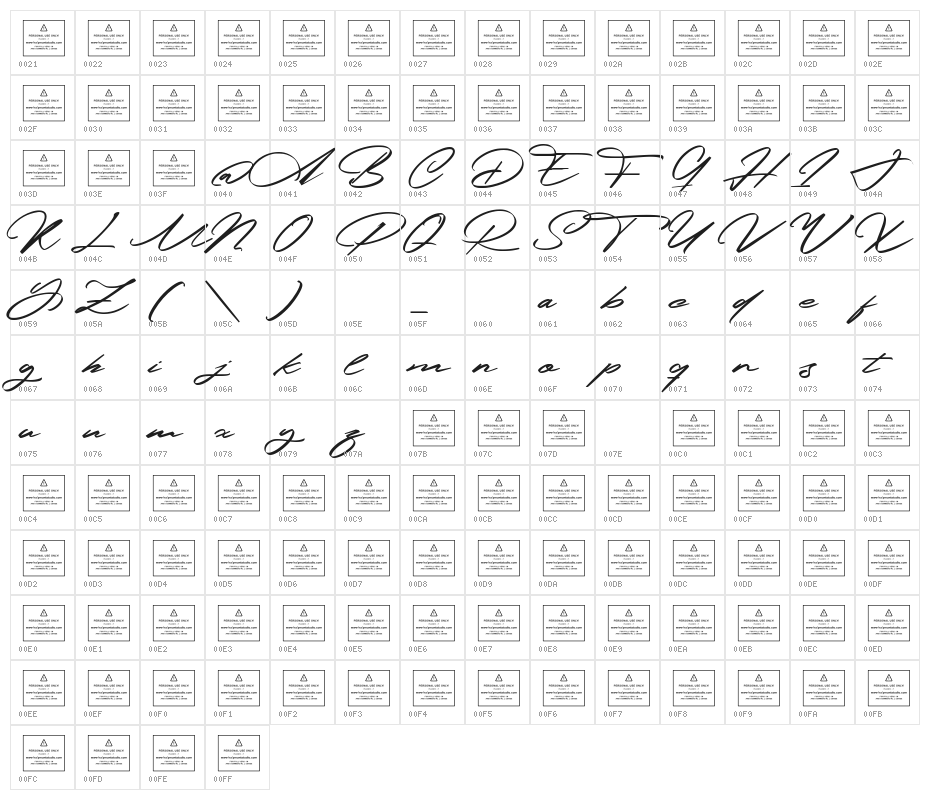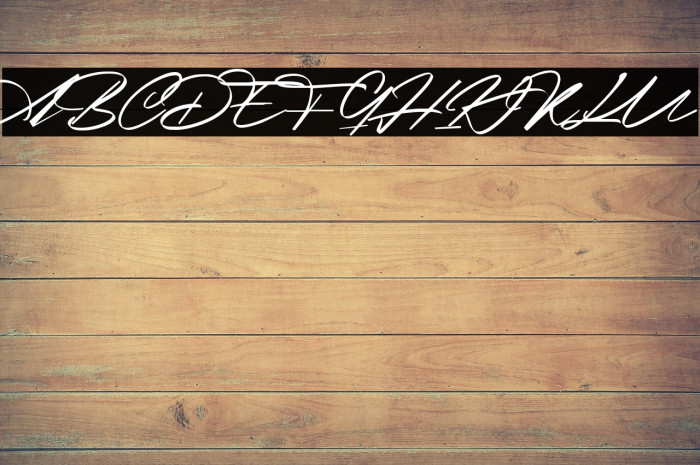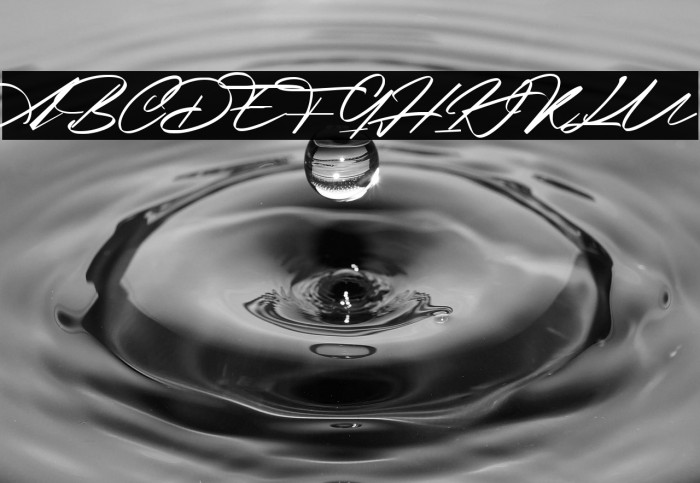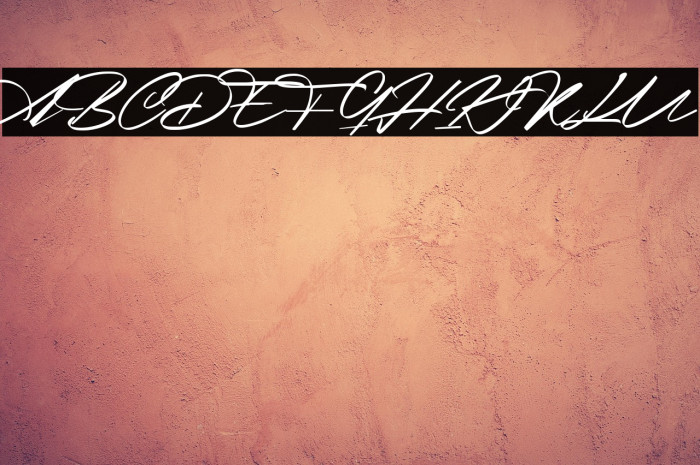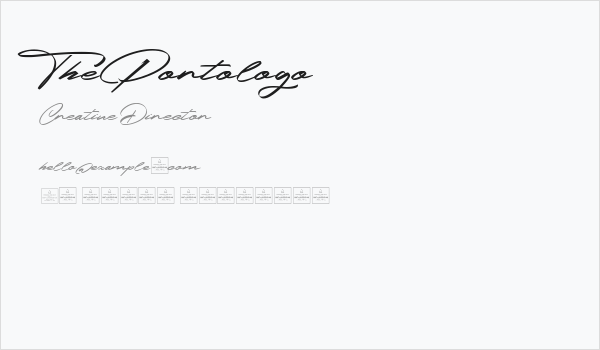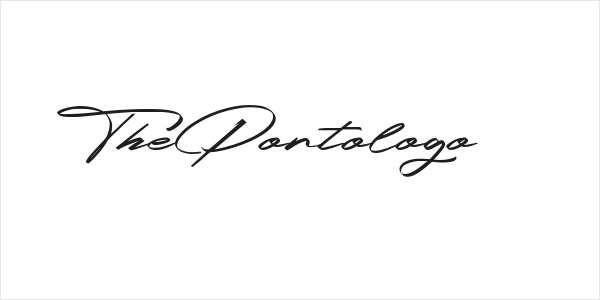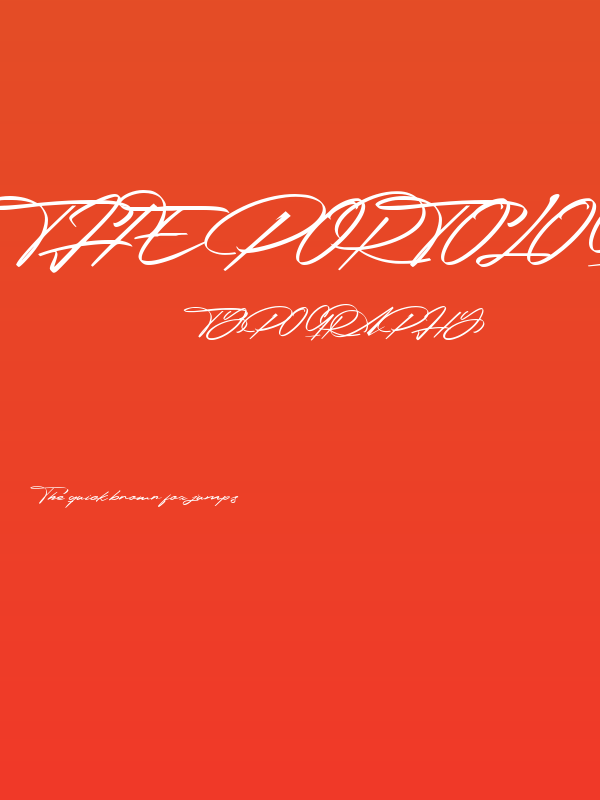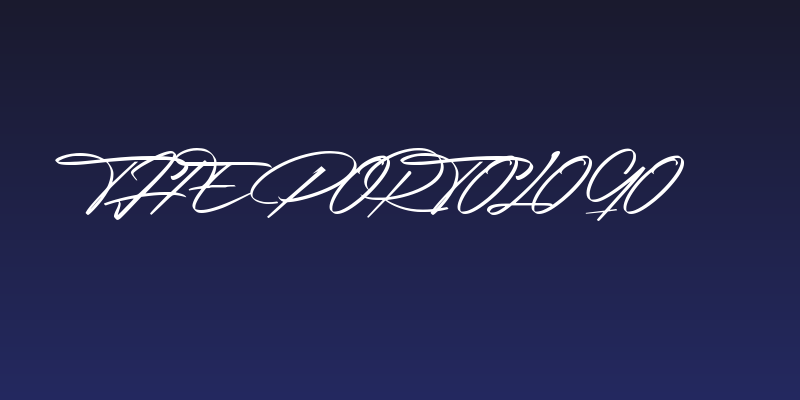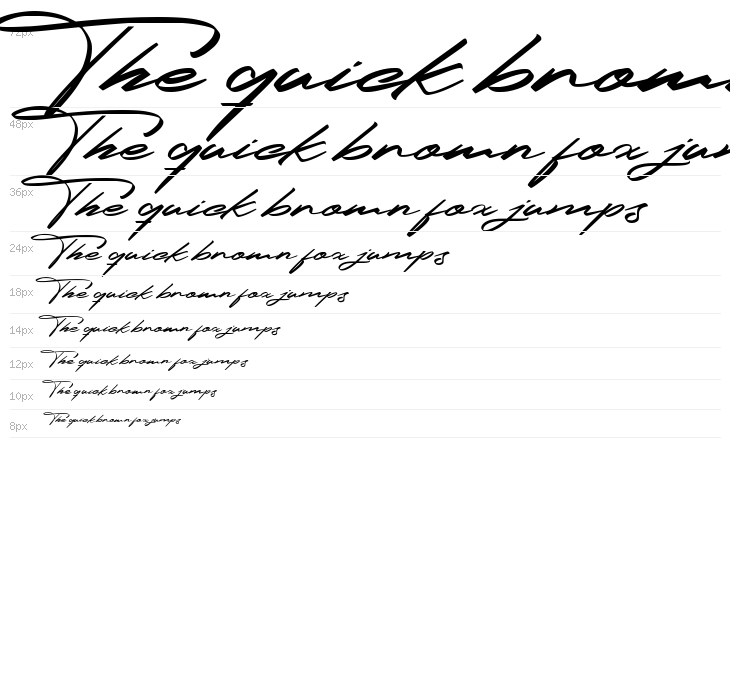
The Portologo Font
The Portologo Description
This elegant script font features flowing, interconnected letters that mimic the fluidity of cursive handwriting. The characters are gracefully slanted, with a consistent stroke width that adds to its sophisticated appearance. The uppercase letters are ornate, with sweeping lines and loops, while the lowercase letters maintain a more restrained yet stylish form. This font exudes a sense of elegance and refinement, making it ideal for formal invitations, branding, and decorative purposes. The spacing between characters is tight, enhancing the connected script style.
| Use Case | Logos, Invitations, Decorative headings |
| Proposed Projects | Ideal for wedding invitations, luxury branding, elegant logos, and decorative headings. |